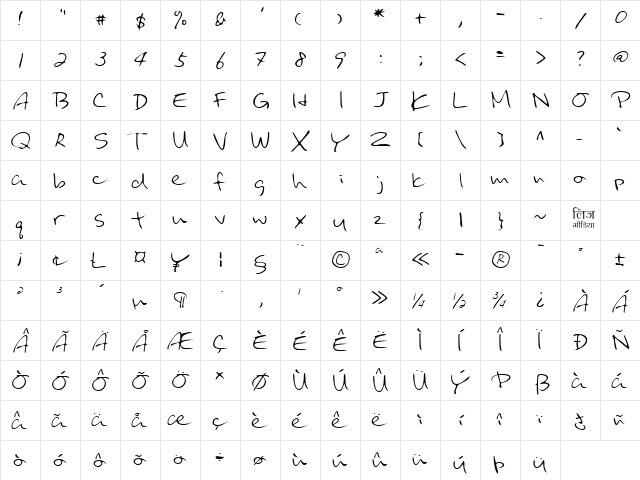
LEHN031 Regular Font Preview
LEHN031 Regular
Design Context for LEHN031 Typeface
LEHN031 takes a measured approach to typography — its balanced proportions and neutral character make it a reliable workhorse for both digital and print work.